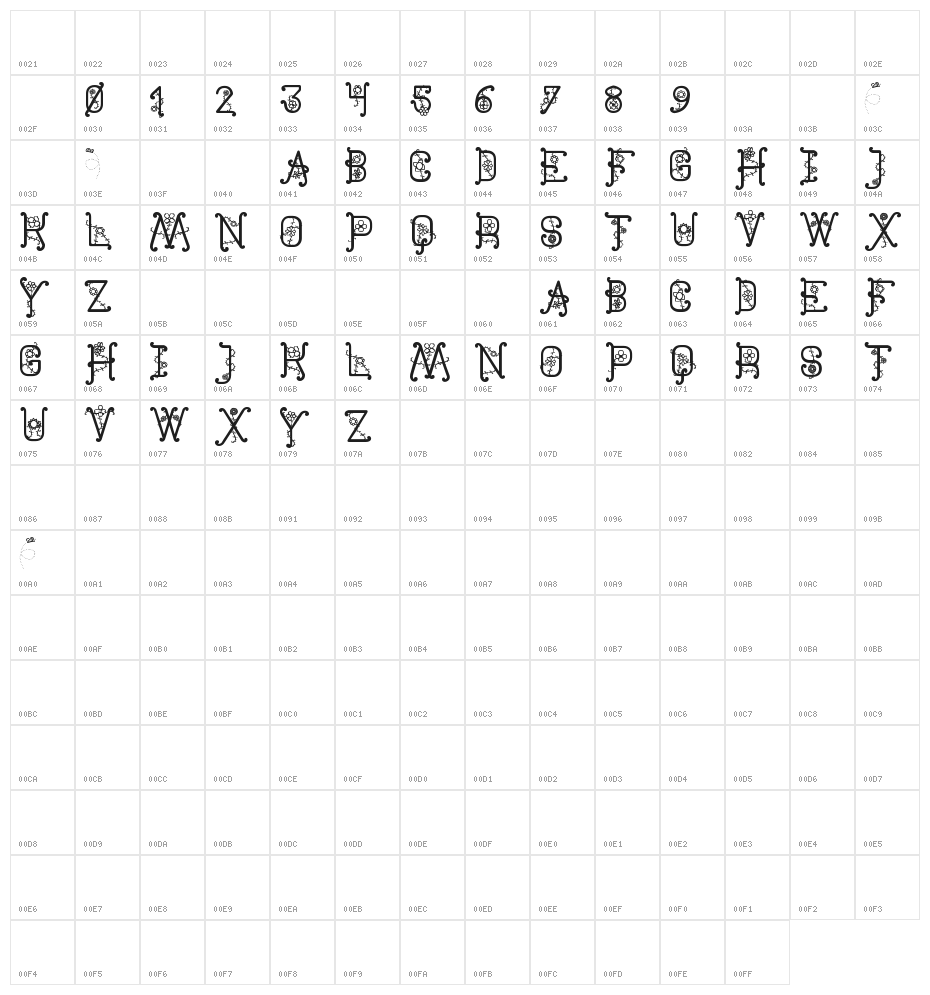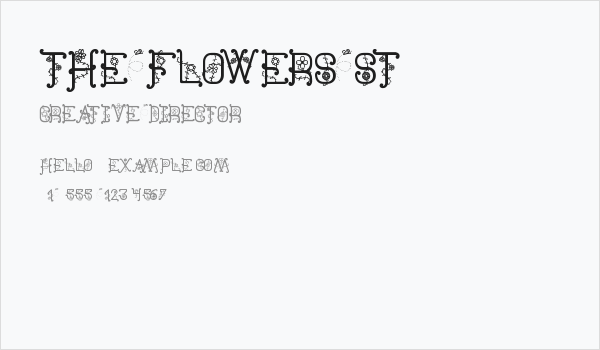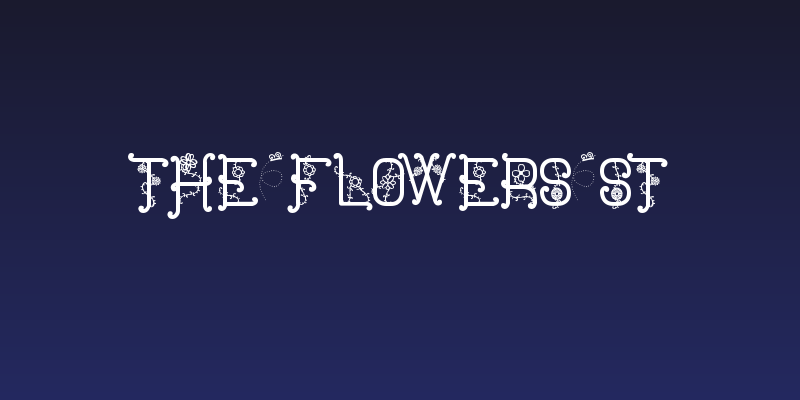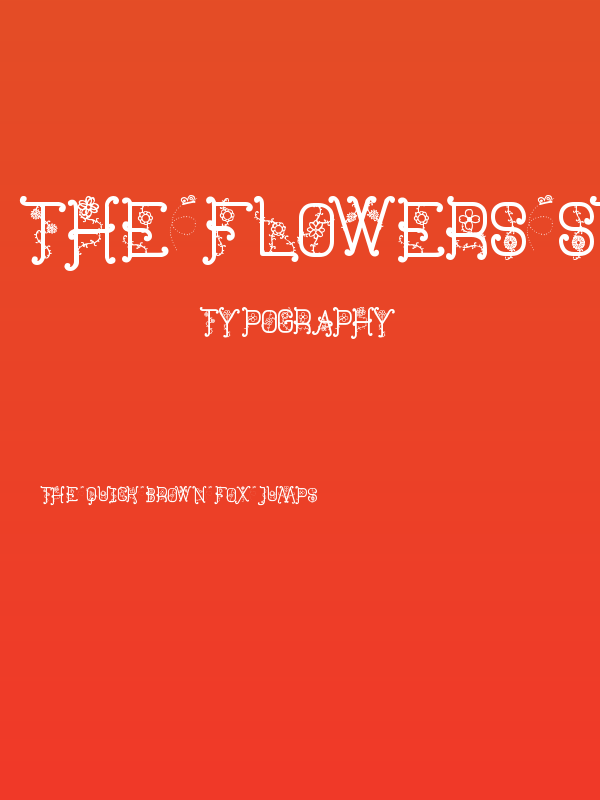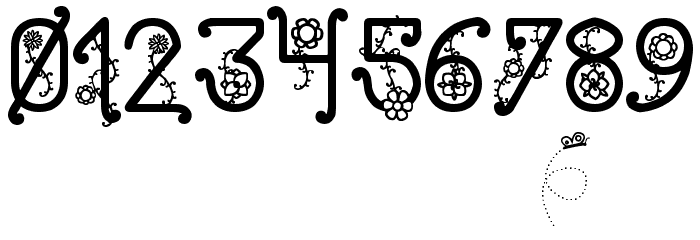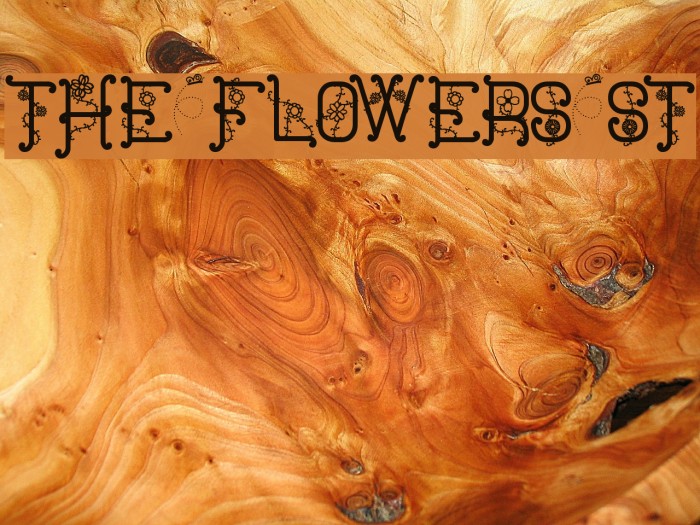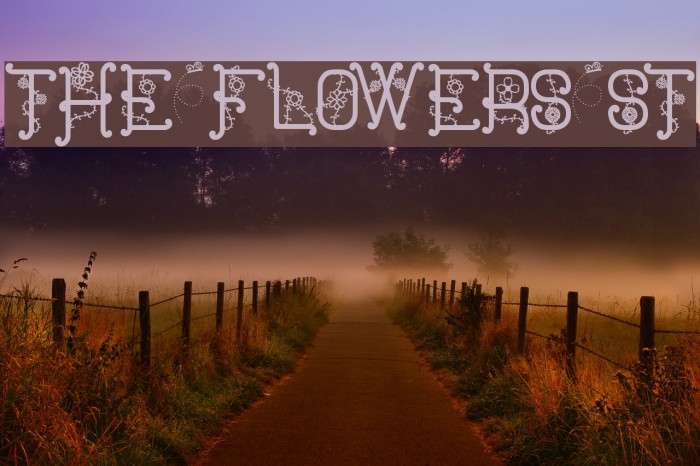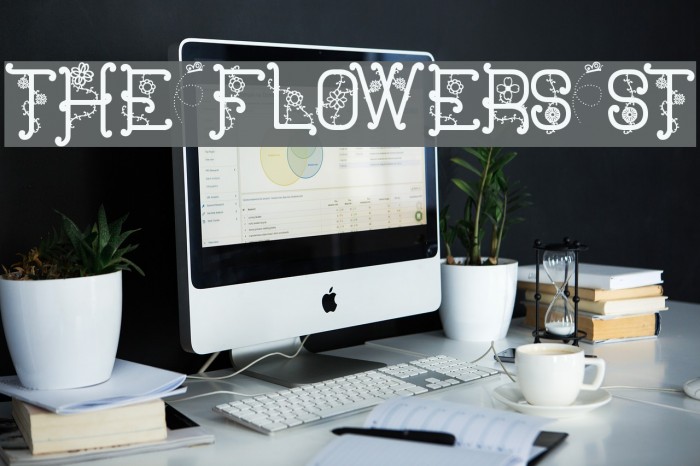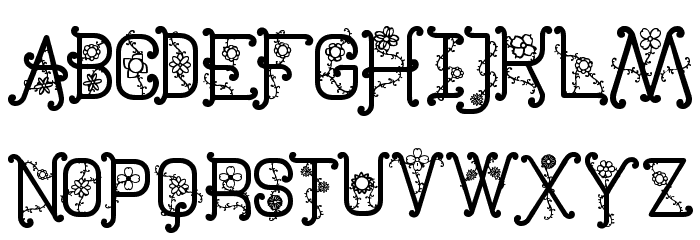
The Flowers St Font
The Flowers St Description
This font is a decorative and playful typeface featuring floral embellishments integrated into each character. The letters are bold and rounded, with intricate flower patterns that add a whimsical touch. The uppercase and lowercase letters maintain a consistent style, with the floral designs varying slightly to create a unique look for each character. The numbers also follow this floral theme, ensuring a cohesive appearance across all characters. This font is ideal for projects that require a fun and artistic flair, such as invitations, greeting cards, or branding for creative businesses.
| Proposed Projects | Ideal for invitations, greeting cards, artistic branding, and creative projects. |